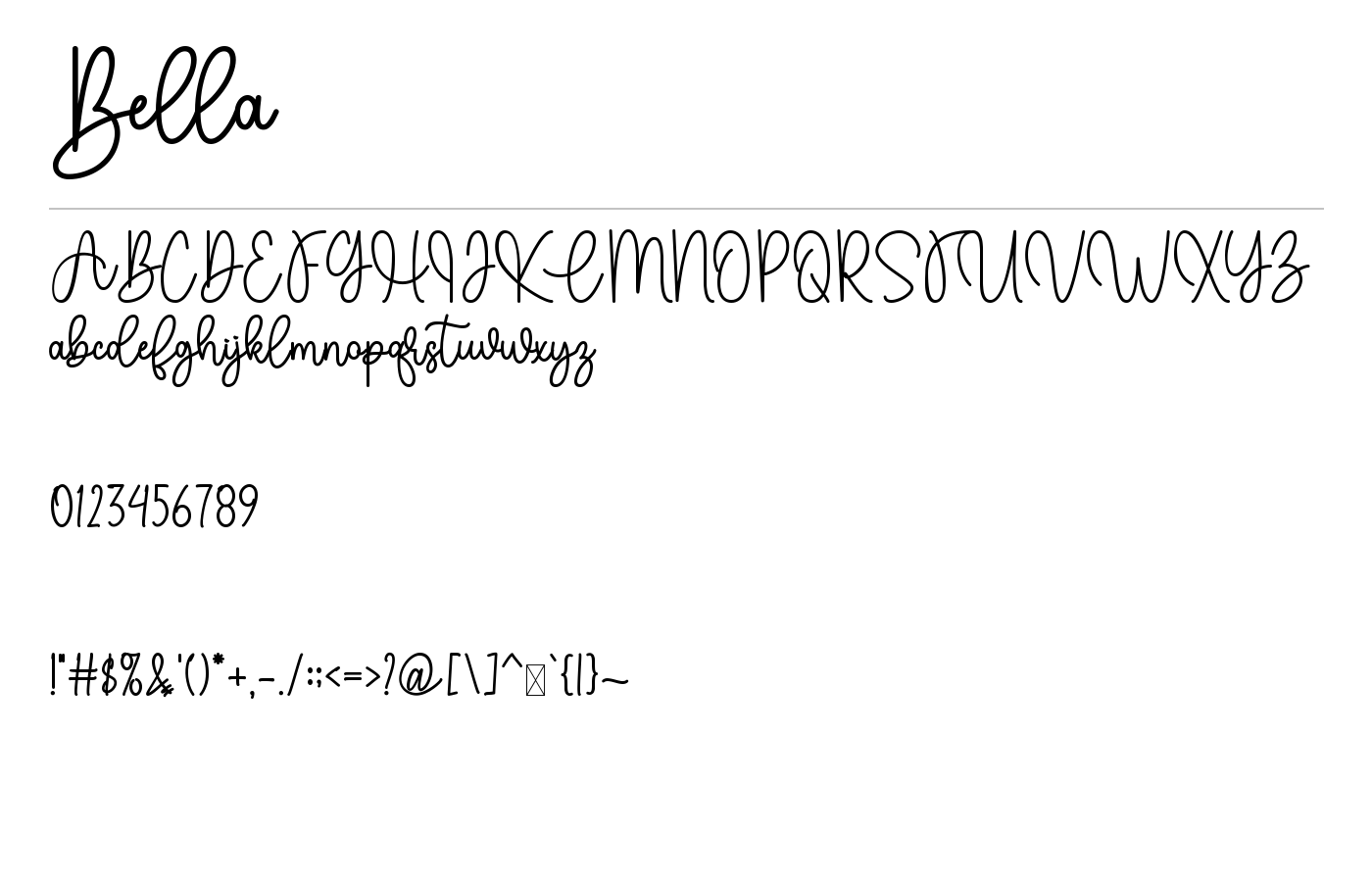
Bella Font is a playful and elegant handwritten script with a light, airy feel and smooth, flowing lines. Its tall, slender letterforms and unique loops give it a charming and friendly personality, making it ideal for creative branding, invitations, and casual yet stylish headlines. This font works best where a personal, approachable touch is desired, adding a sense of warmth and individuality.
Bella Font
About Bella Font
| Font family | Bella Font |
| Designer | Nopianti |